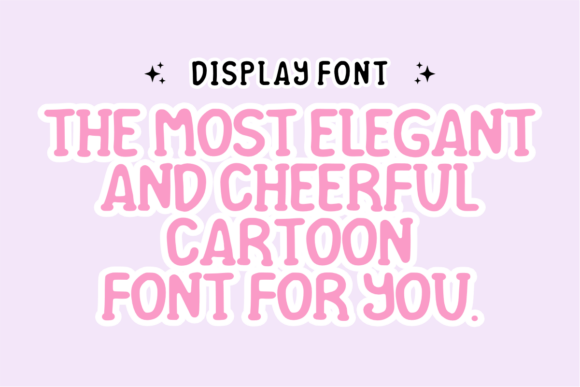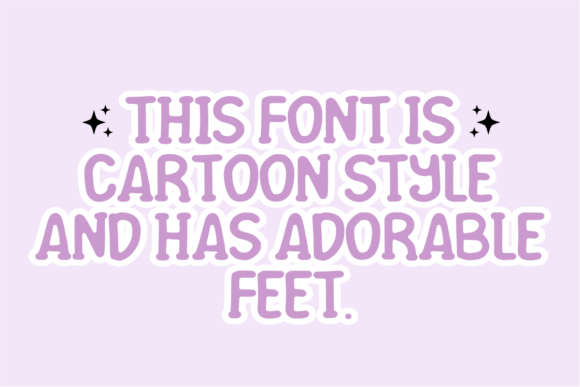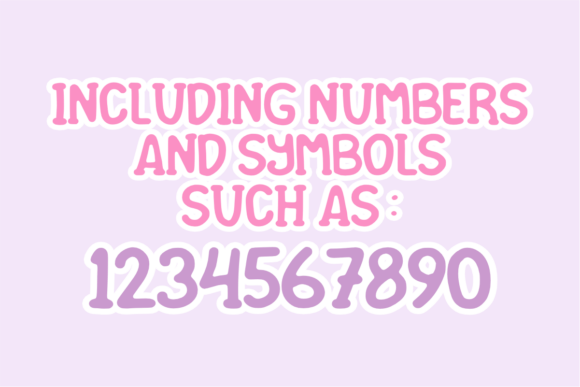
Discover the Delightful World of Cute Shape Kids Font
I’ll never forget the time I was working on a children’s book project, and my client asked me to create a cover that would appeal to kids aged 4-8. I spent hours scouring font libraries, but nothing seemed quite right. That was until I stumbled upon the Cute Shape Kids Font. Its playful, rounded letterforms instantly captured the whimsical feel I was looking for. In this article, I’ll share my experience with this charming font, its features, and how to make the most of it in your designs.
A Personal Review of Cute Shape Kids Font
• ✨ The font’s thick, rounded letterforms are perfect for creating a friendly, approachable feel.
• ✅ The smooth edges and soft shapes give it a delightful, hand-drawn quality.
• 🎉 It’s incredibly versatile and works well for both digital and print projects.
• 👍 The bold structure ensures great visibility, even at smaller sizes.
While the Cute Shape Kids Font is amazing, there are a few things to keep in mind:
• 🤔 The font’s playful nature might not be suitable for more formal or professional projects.
• ⚠️ Some of the letterforms can be a bit quirky, so it’s essential to test the font with your specific text.
The Story Behind Cute Shape Kids Font
The Cute Shape Kids Font was designed with one goal in mind: to capture the magic of childhood. The designer, inspired by the colorful world of children’s books and toys, created a font that would bring a smile to kids’ faces. With its rounded letterforms and soft shapes, Cute Shape Kids Font is the perfect tool for designers who want to create engaging, kid-friendly content.
Q: Does Cute Shape Kids Font support OpenType features?
A: Yes, Cute Shape Kids Font supports OpenType features, including glyphs and stylistic alternates, giving you more creative freedom.
Q: Can I use Cute Shape Kids Font for educational materials?
A: Yes, Cute Shape Kids Font is perfect for educational materials, like worksheets, activity sheets, or children’s books.